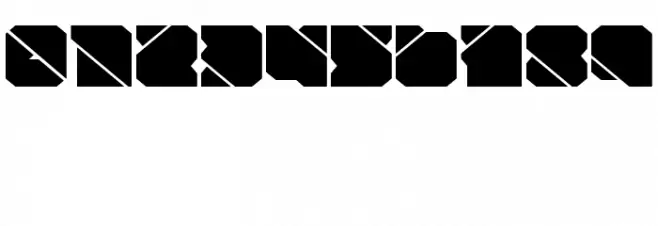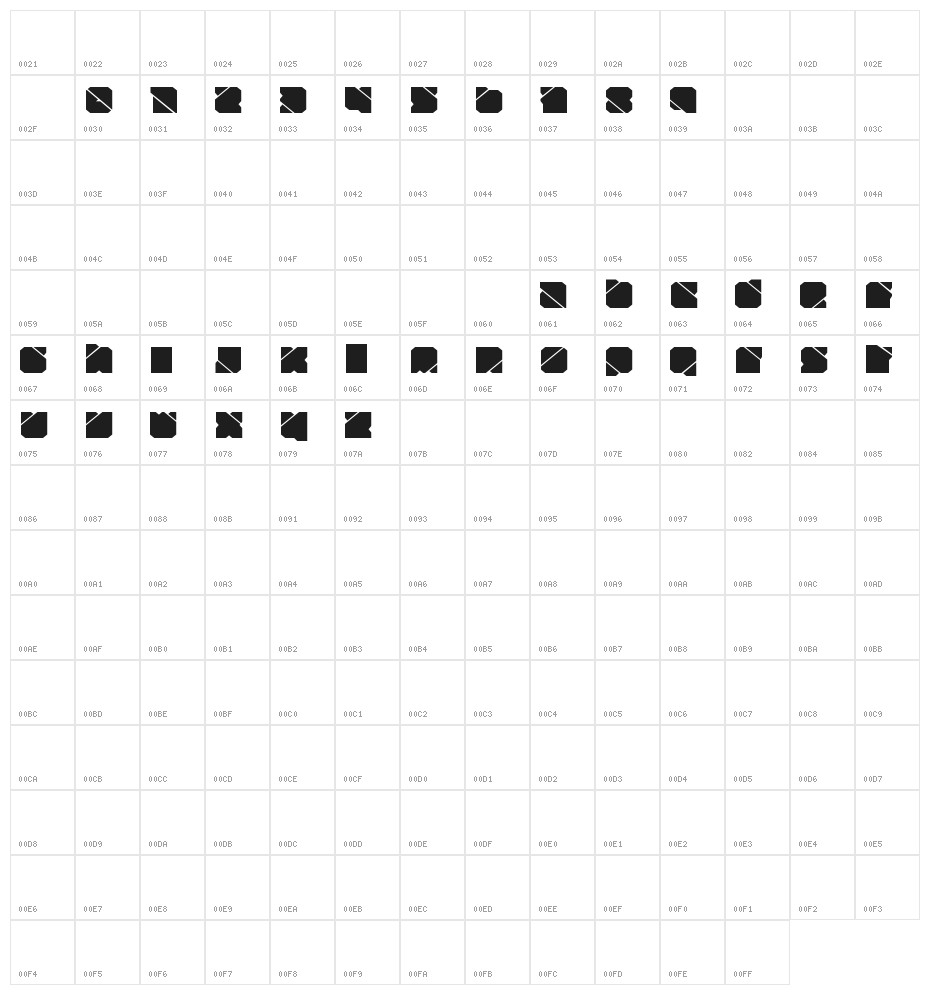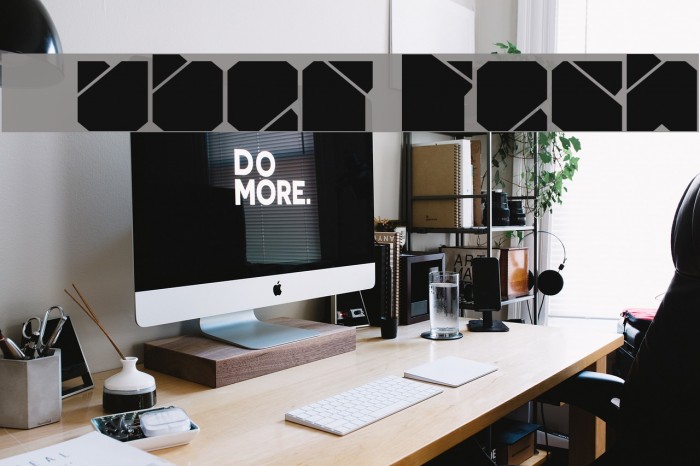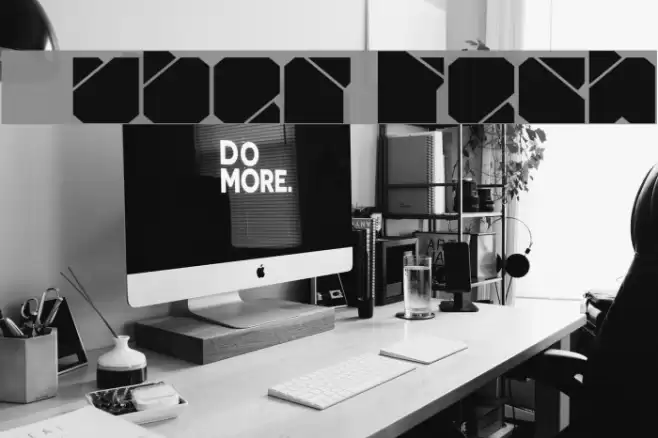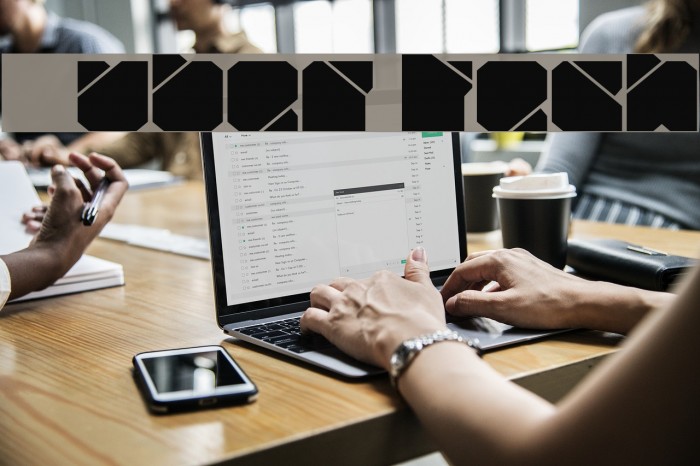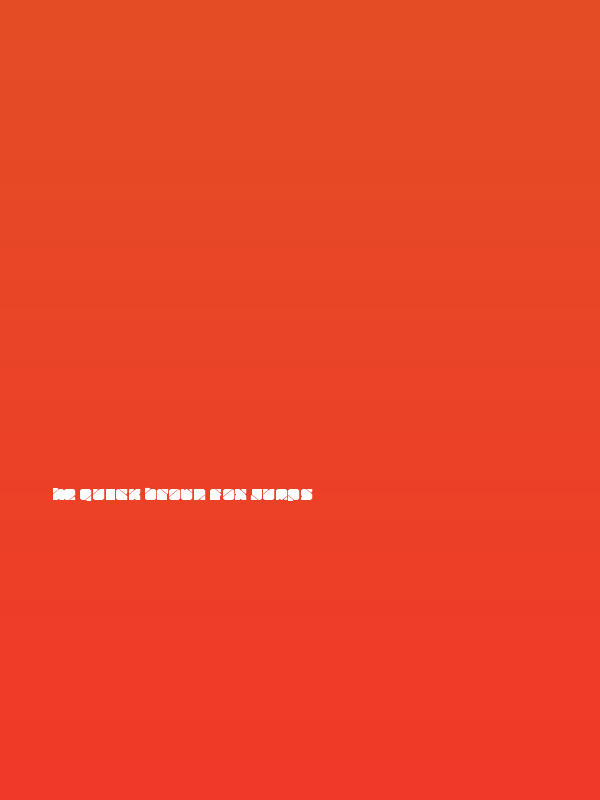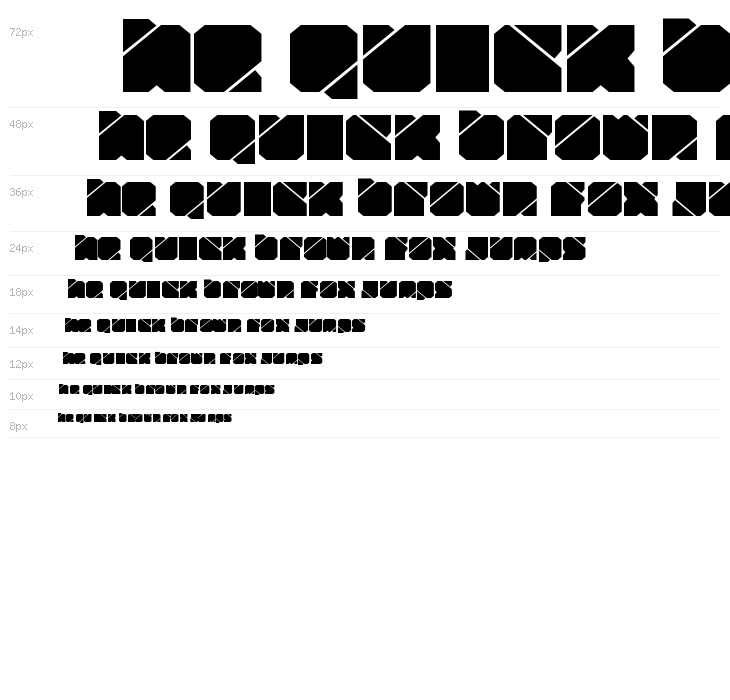
Zuber tech Font
Zuber tech Description
This font features a bold, geometric design with a futuristic and tech-inspired aesthetic. Each character is constructed from solid shapes with angular cuts, creating a unique and modern appearance. The letters and numbers are uniform in height, contributing to a cohesive look across the typeface. The use of negative space within the characters adds an intriguing visual element, enhancing its distinctiveness. This font is ideal for projects that require a strong, impactful presence, such as technology branding, digital media, or modern art installations.
| Proposed Projects | Ideal for technology branding, digital media, modern art installations, and futuristic design projects. |